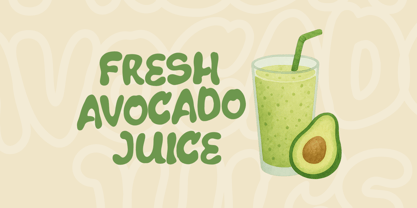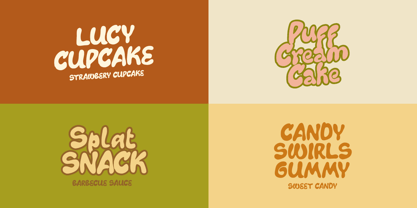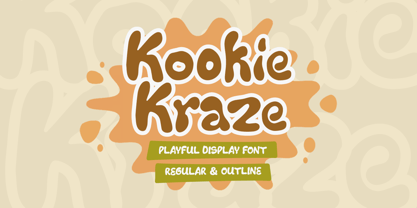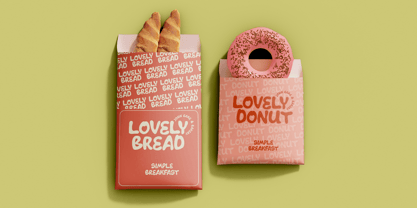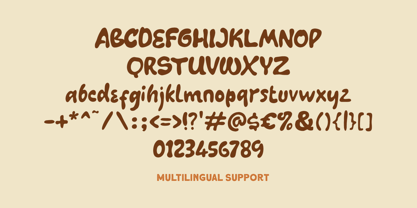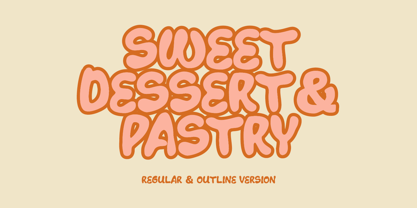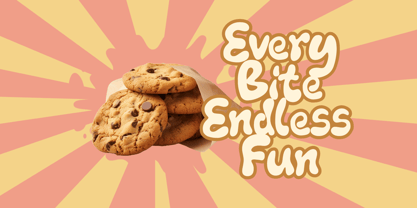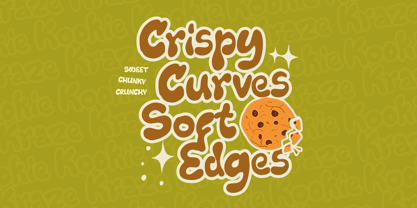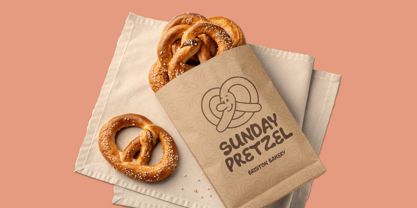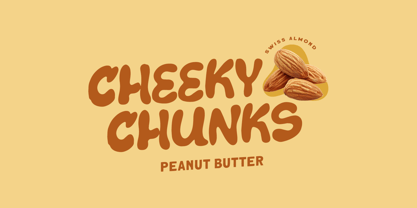
Kookie Kraze
The Kookie Kraze Font Family was designed by Hendry Juanda and published by Letterhend. Kookie Kraze contains 2 styles and family package options. More about this family
Kookie Kraze is a fun and chunky display font that bursts with playful energy. With its soft rounded shapes and friendly curves, this font is perfect for projects that need a lighthearted and cheerful vibe—think kids’ designs, food packaging, playful branding, posters, or social media graphics. It comes in Regular and Outline styles, giving you flexibility to mix and match while keeping the same quirky, approachable personality.
• Uppercase & lowercase
• Numbers and punctuation
• Multilingual Support